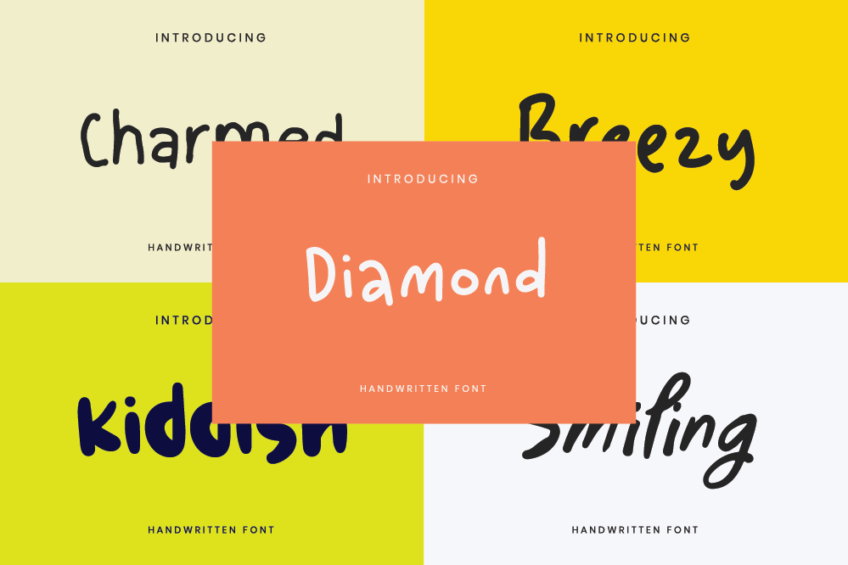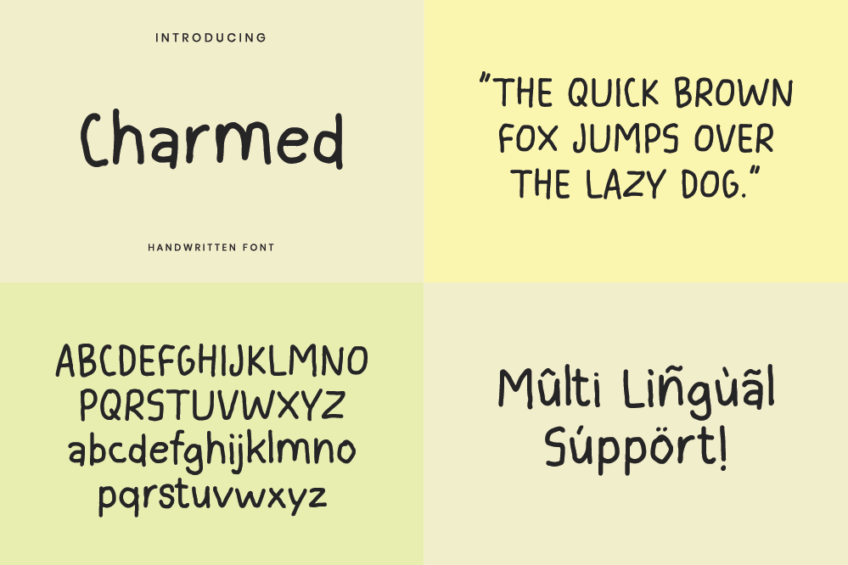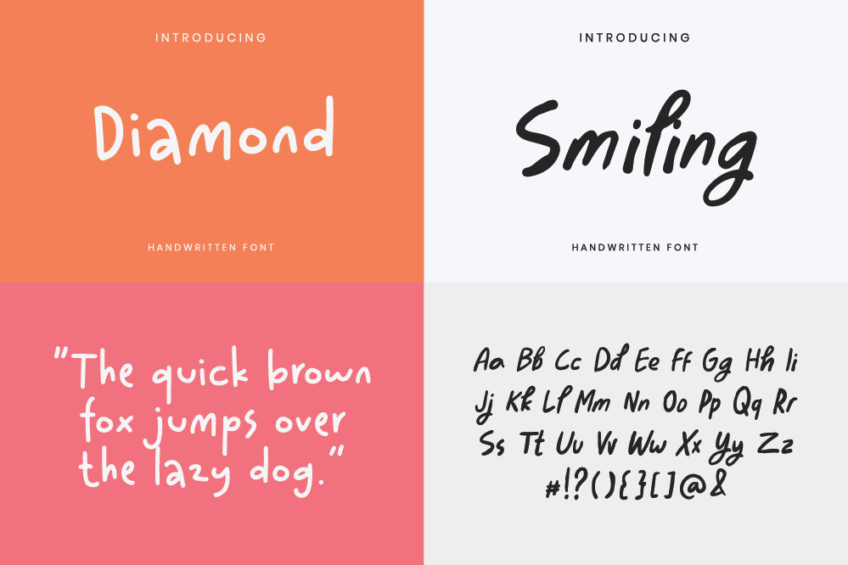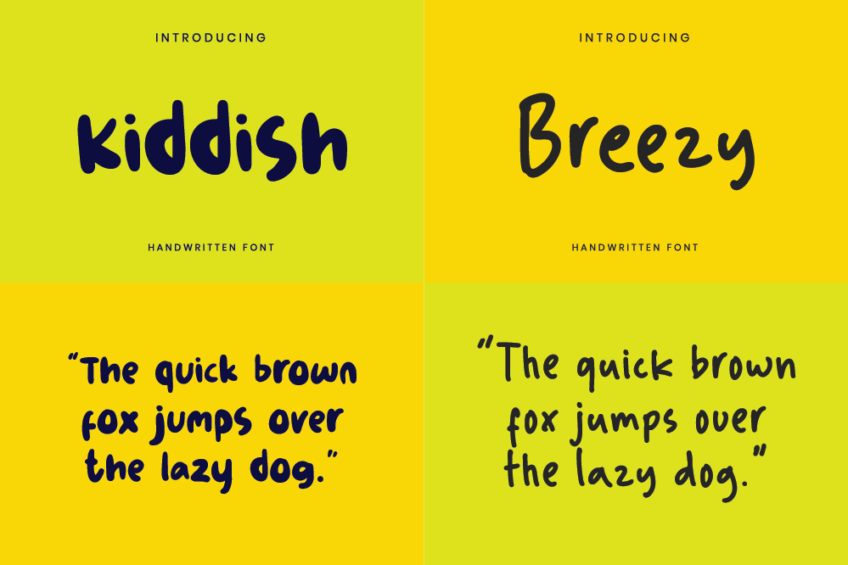
Explore endless possibilities with the Handwritten Font Bundle Vol.4, a curated collection crafted for captivating book cover font. This bundle offers a diverse range of handwritten fonts, each adding a unique touch to your book covers. From elegance to whimsy, find the perfect font to express your narrative and captivate your readers.
Whether you’re designing a novel, poetry collection, or any literary masterpiece, the Handwritten Font Bundle Vol.4 provides the versatility you need. Elevate your book covers with the charm of this book cover font that turn each cover into a work of art.